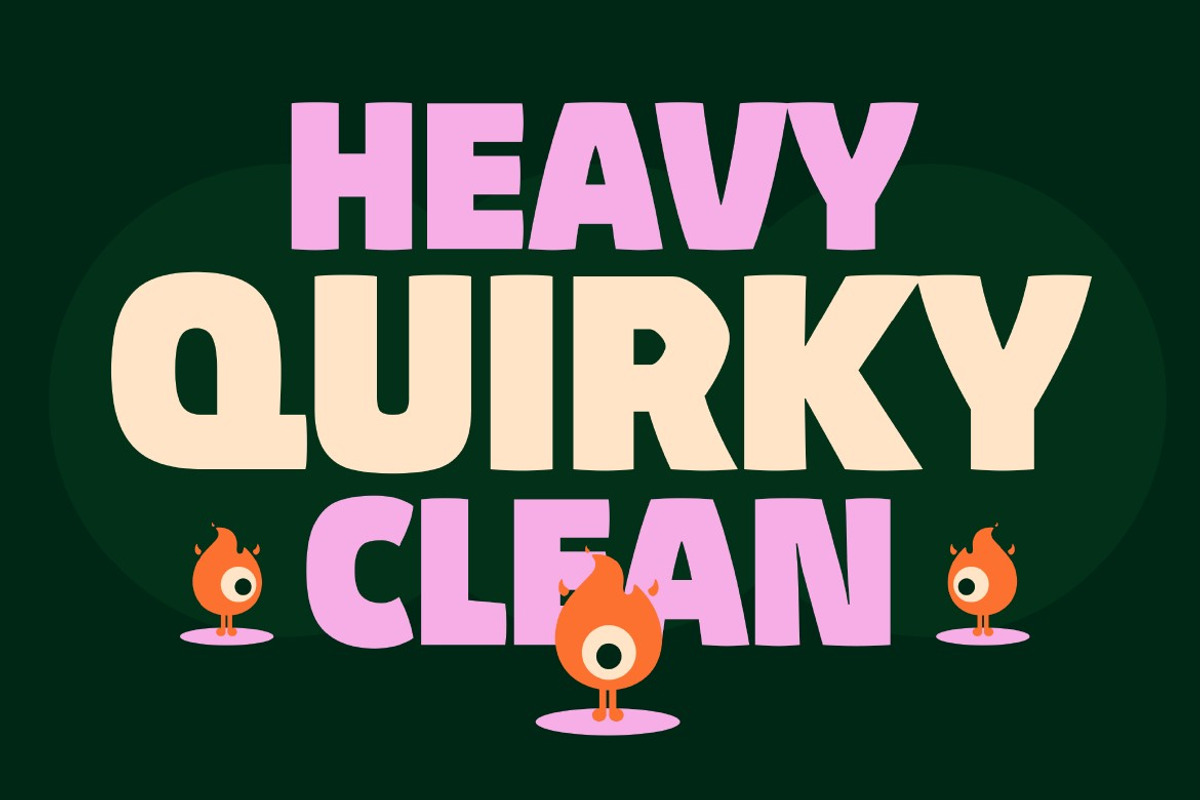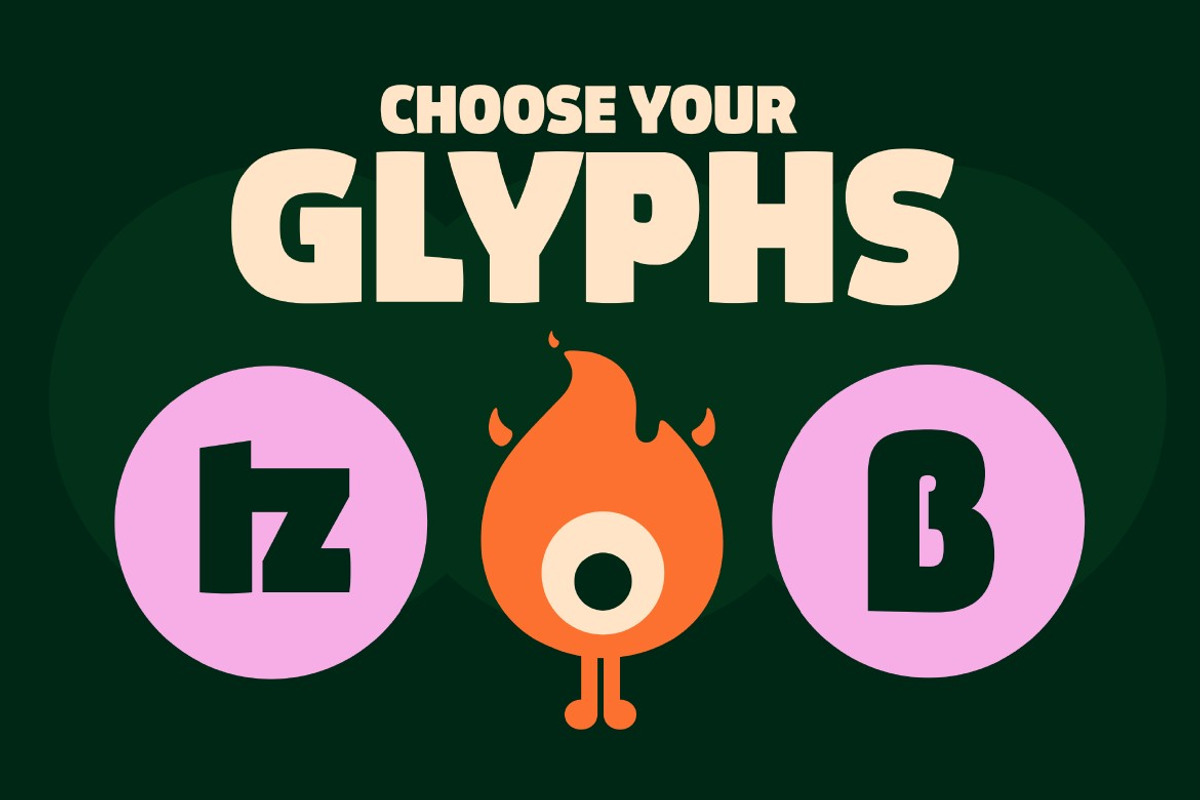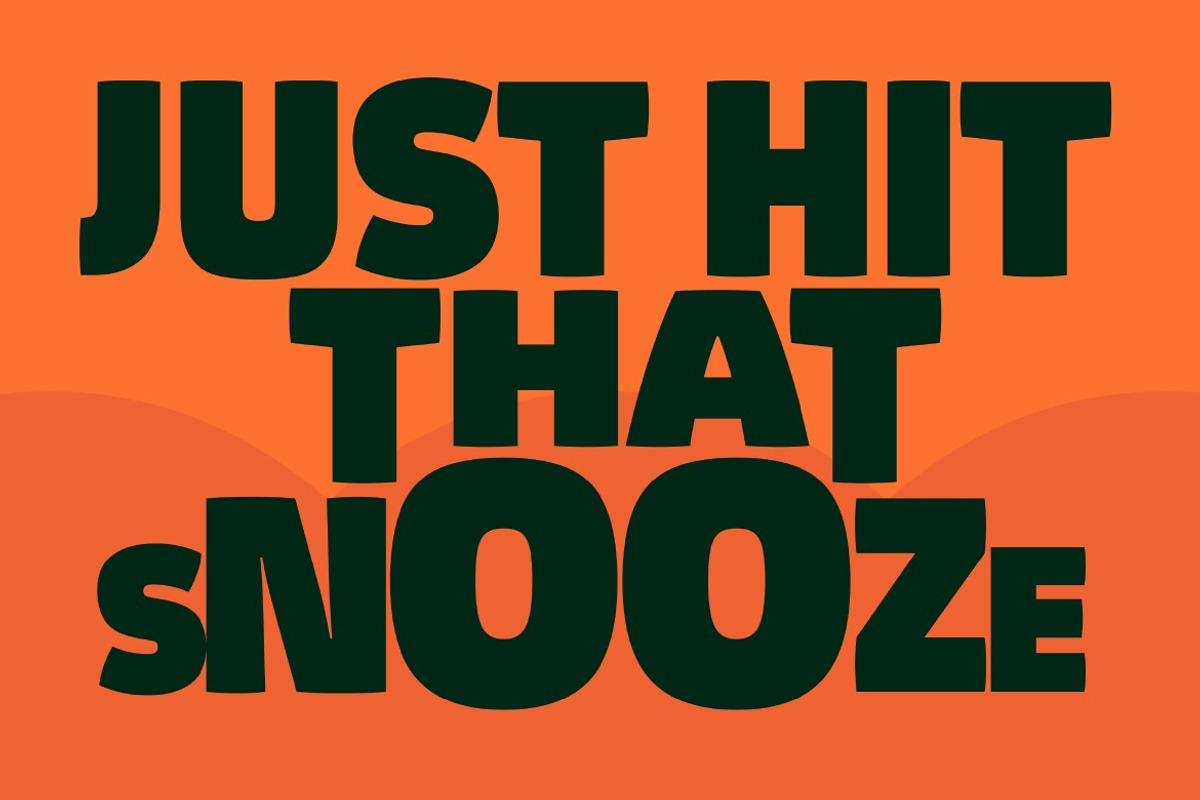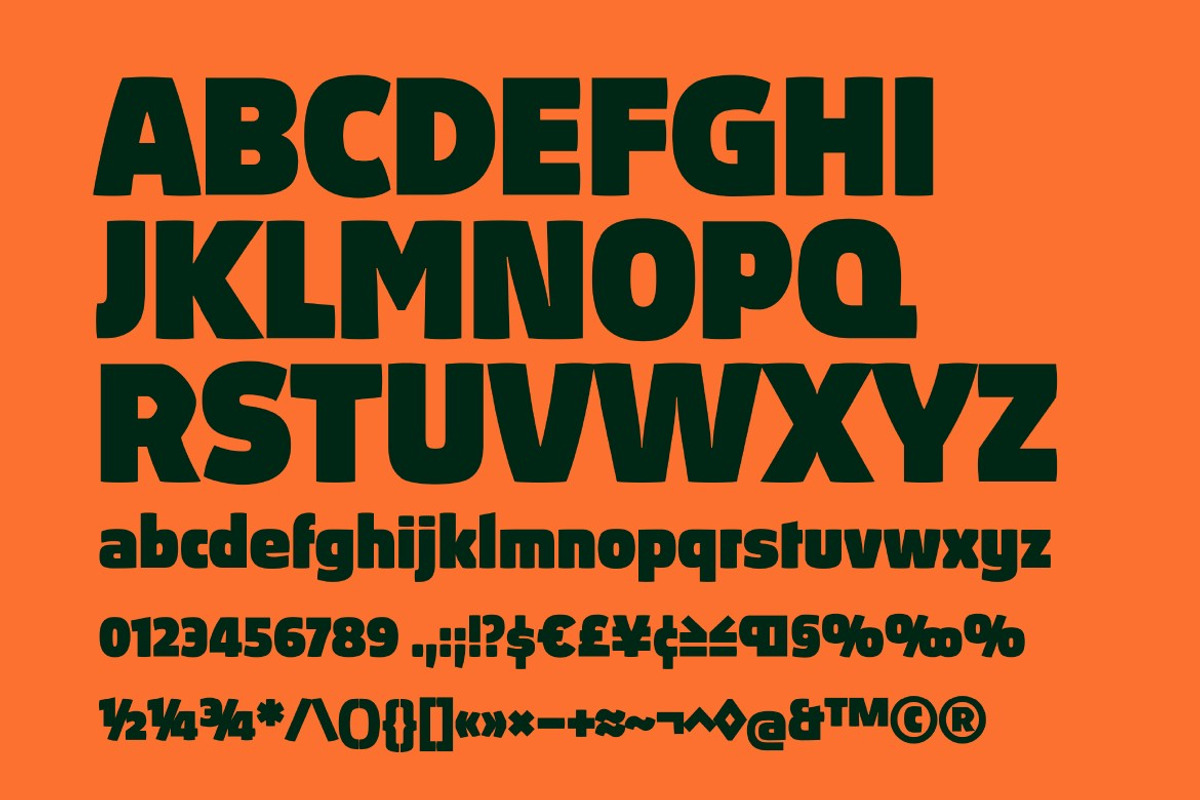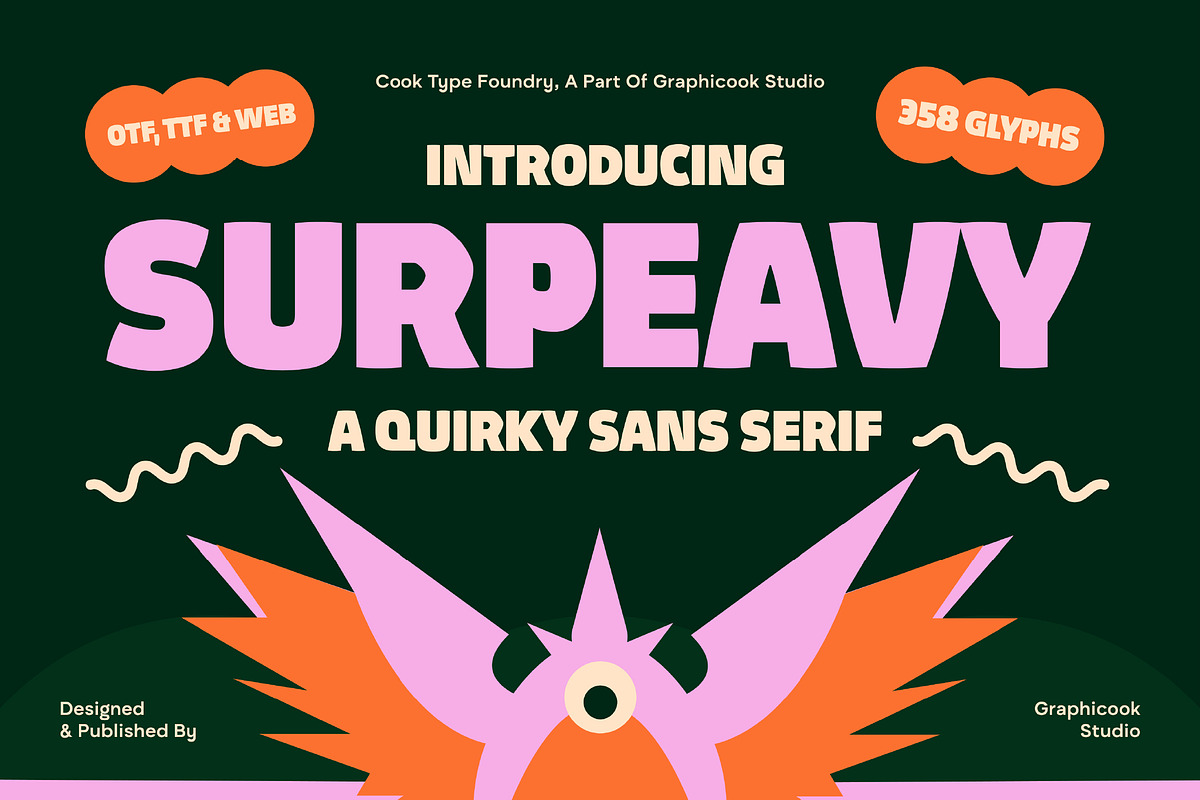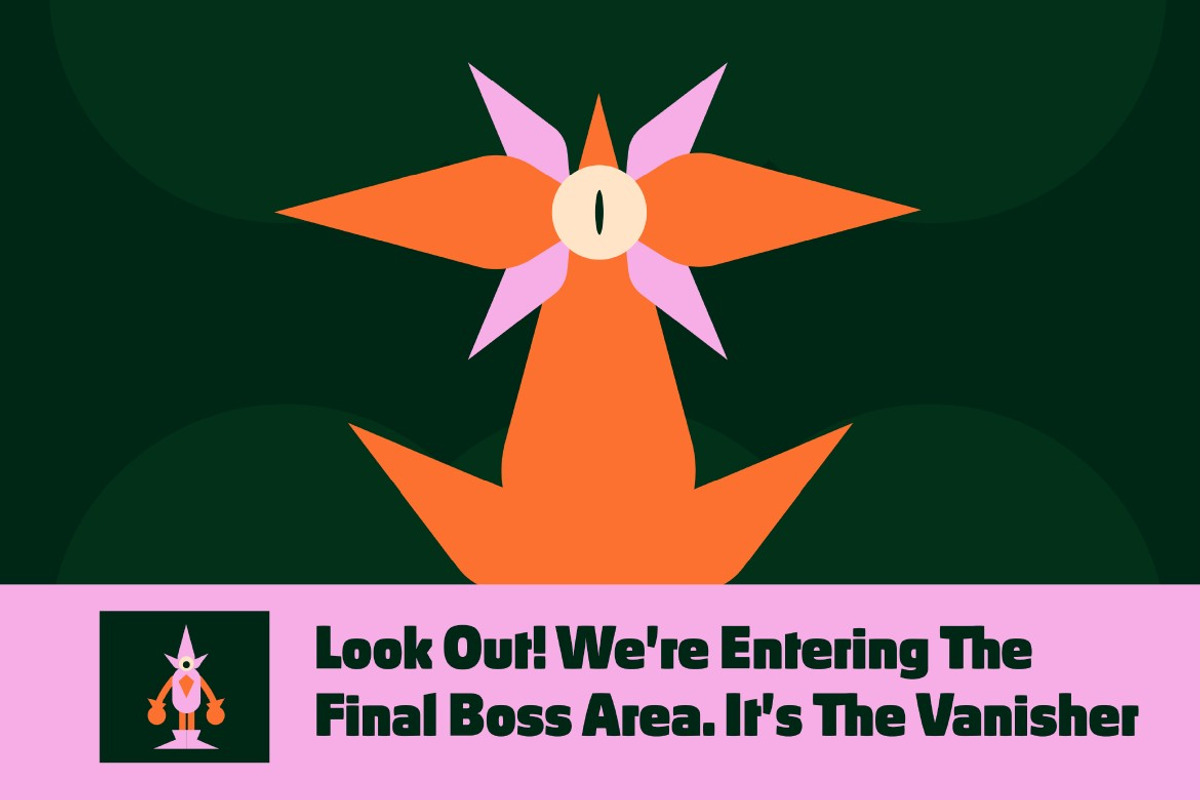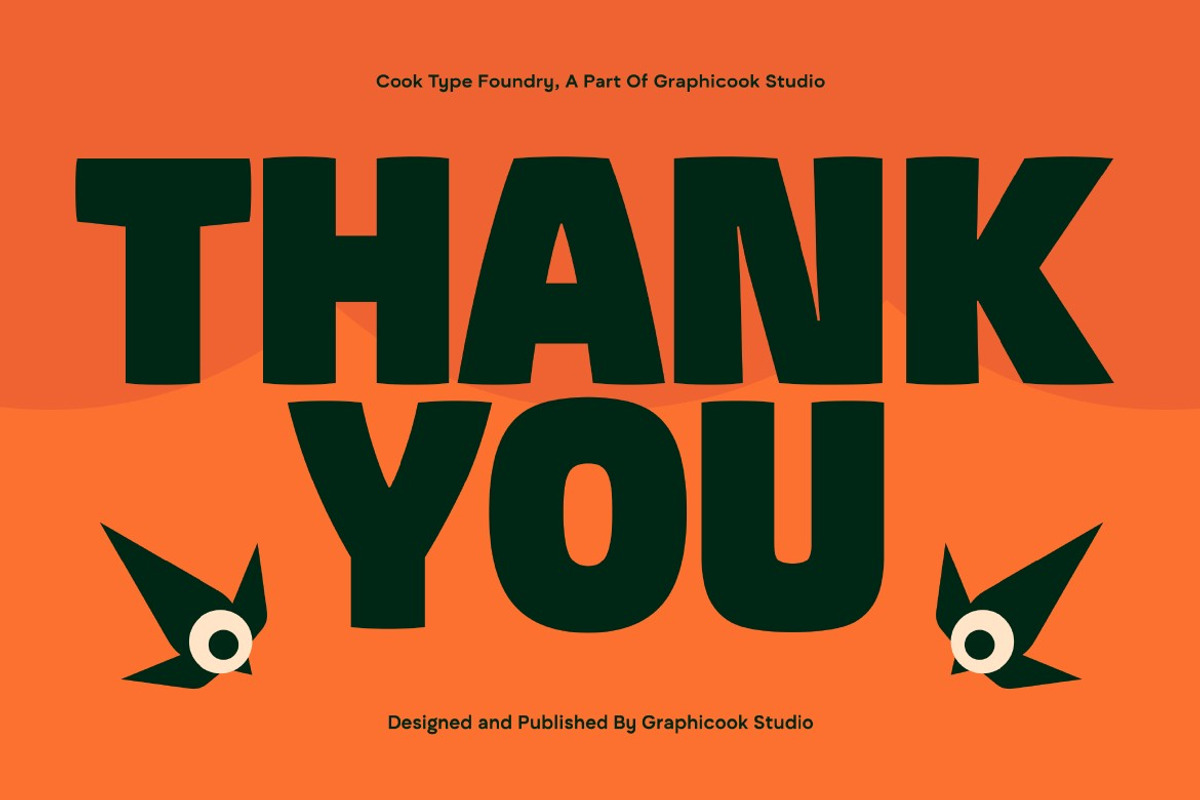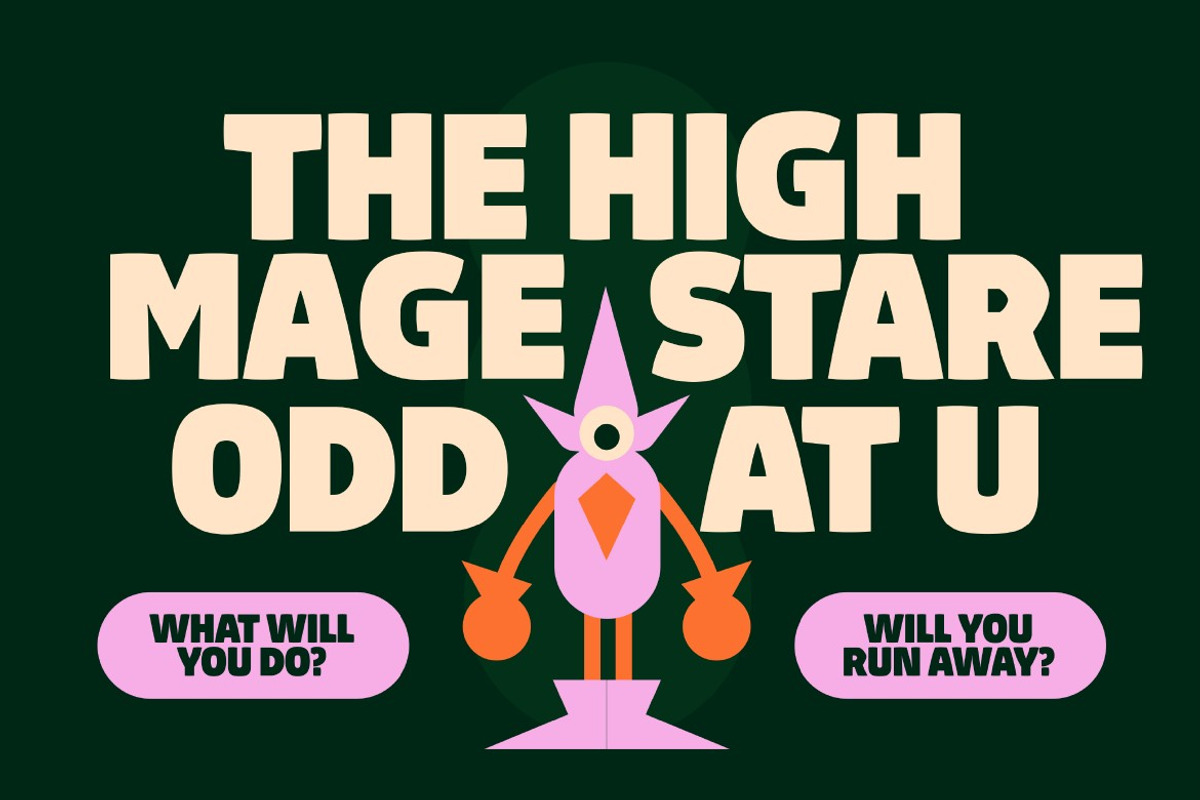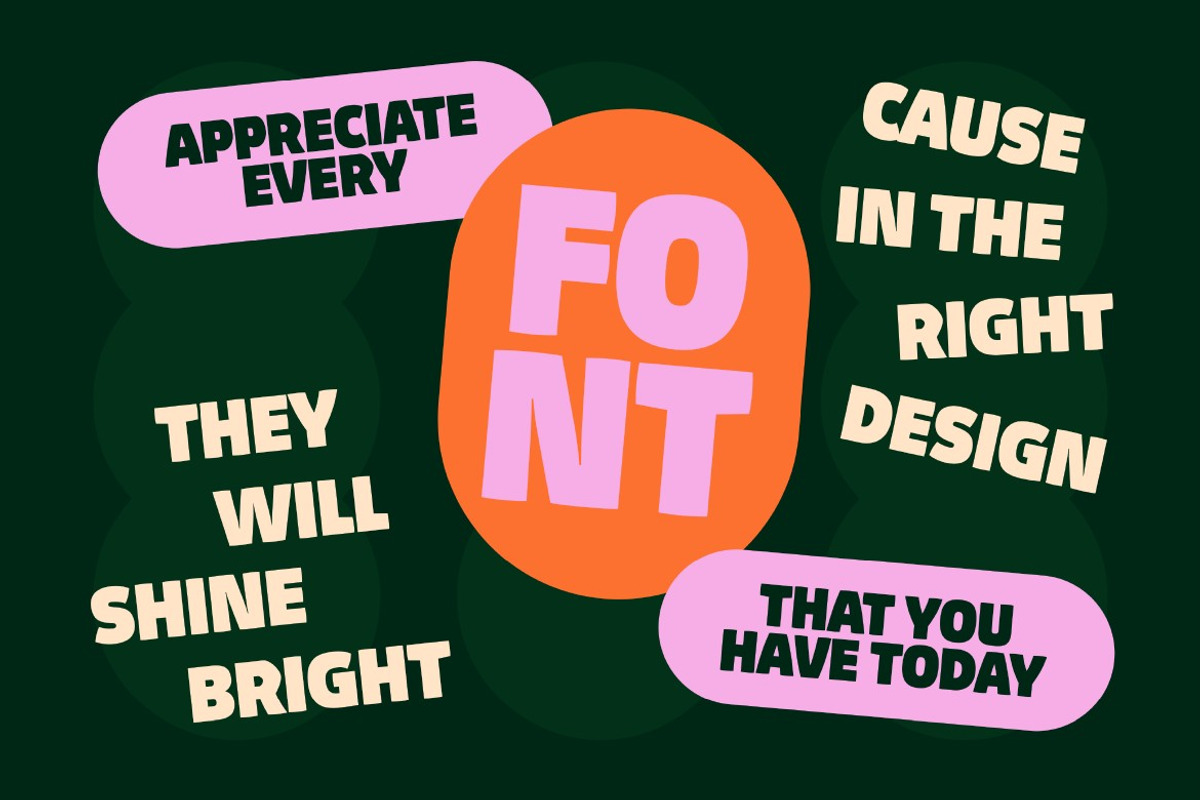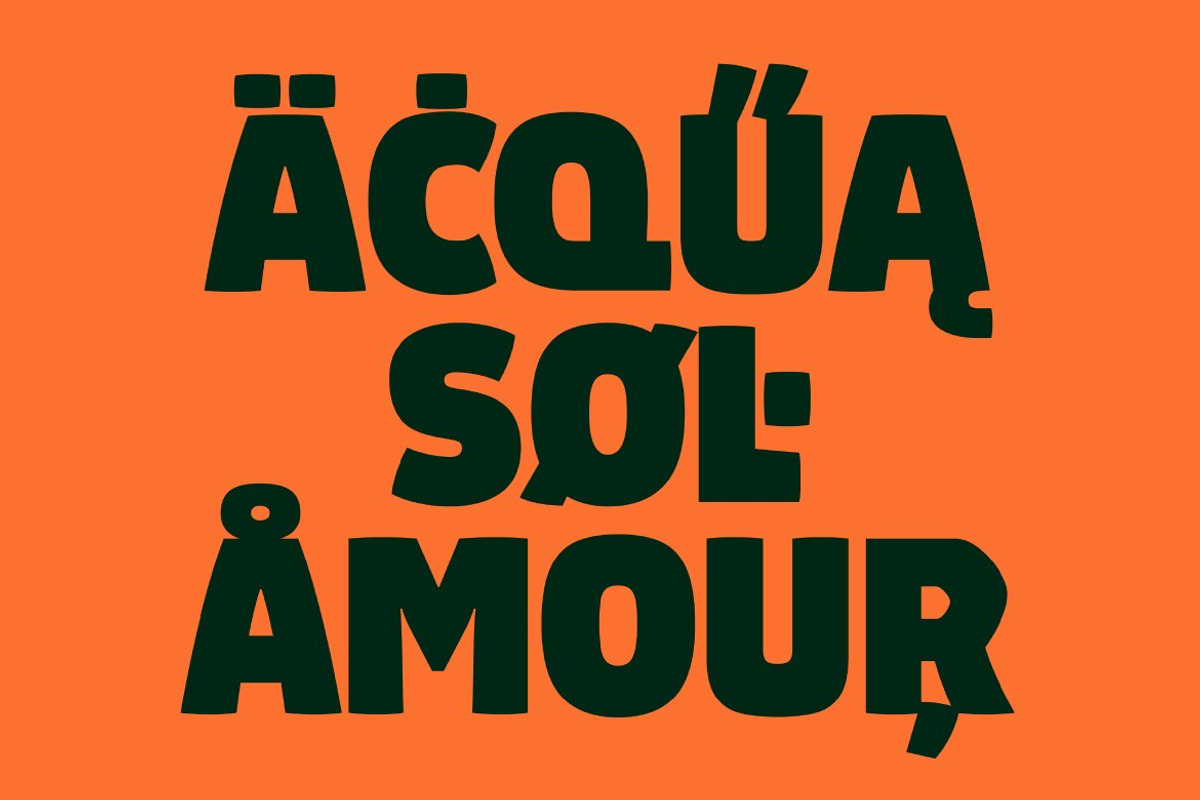
Surpeavy
Surpeavy is a quirky and playful font with a unique, expressive style. Ideal for designs with a fun, friendly, and artistic tone.
Surpeavy is perfect for headlines, logotypes, magazines, packaging, quotes, movies, games, cover albums, book covers, and flyers, it's a perfect solution for creating eye-catching designs that stand out in any context.